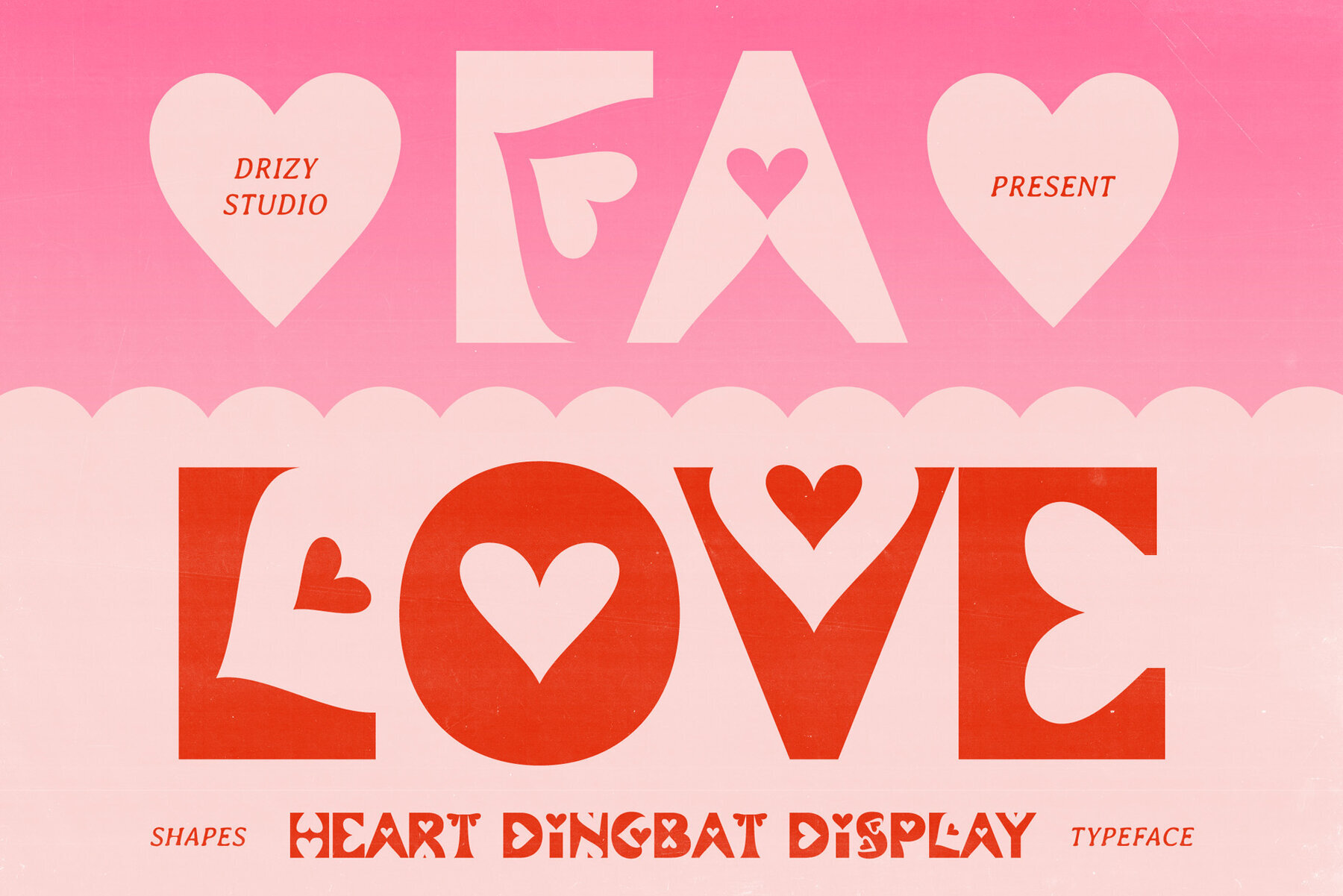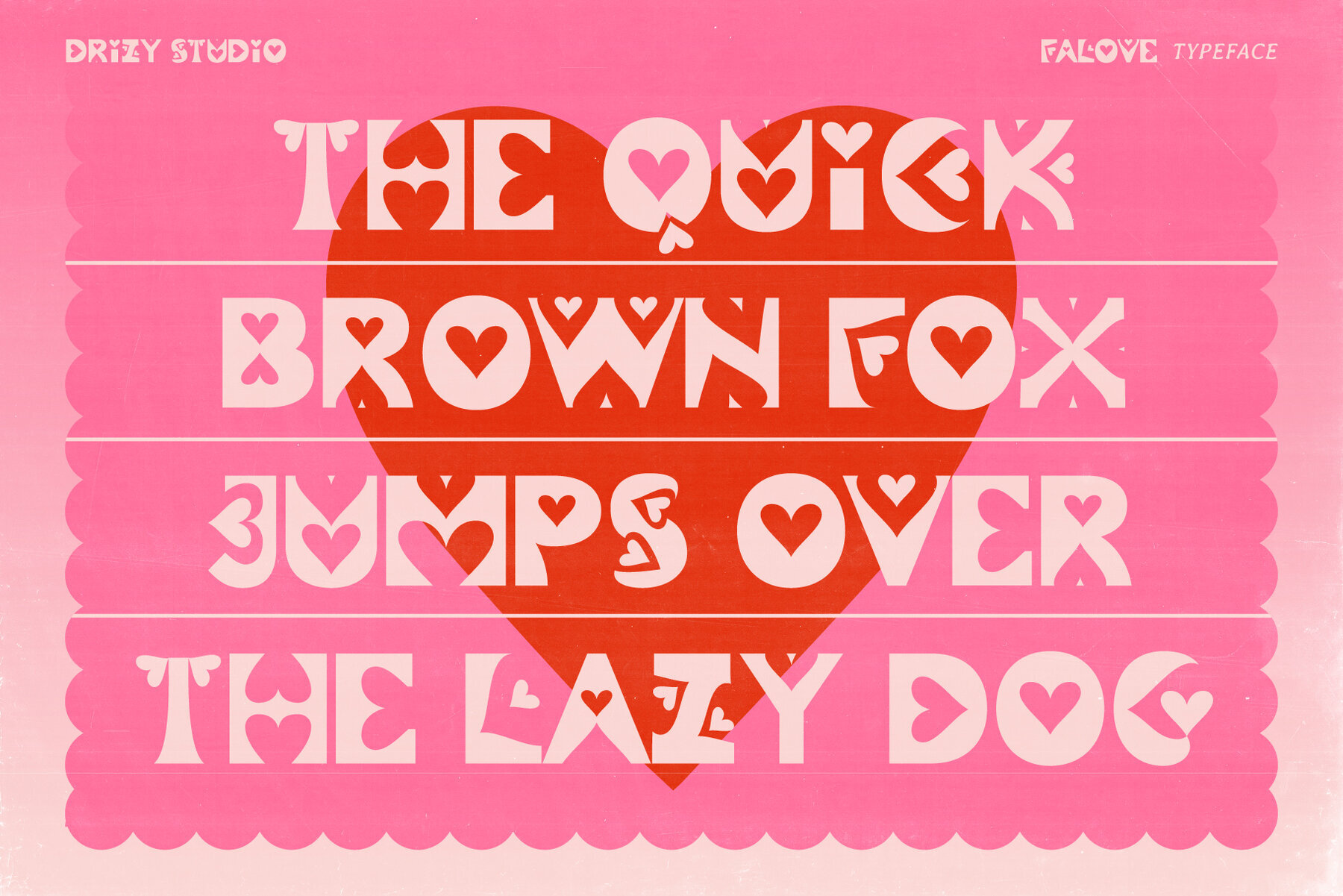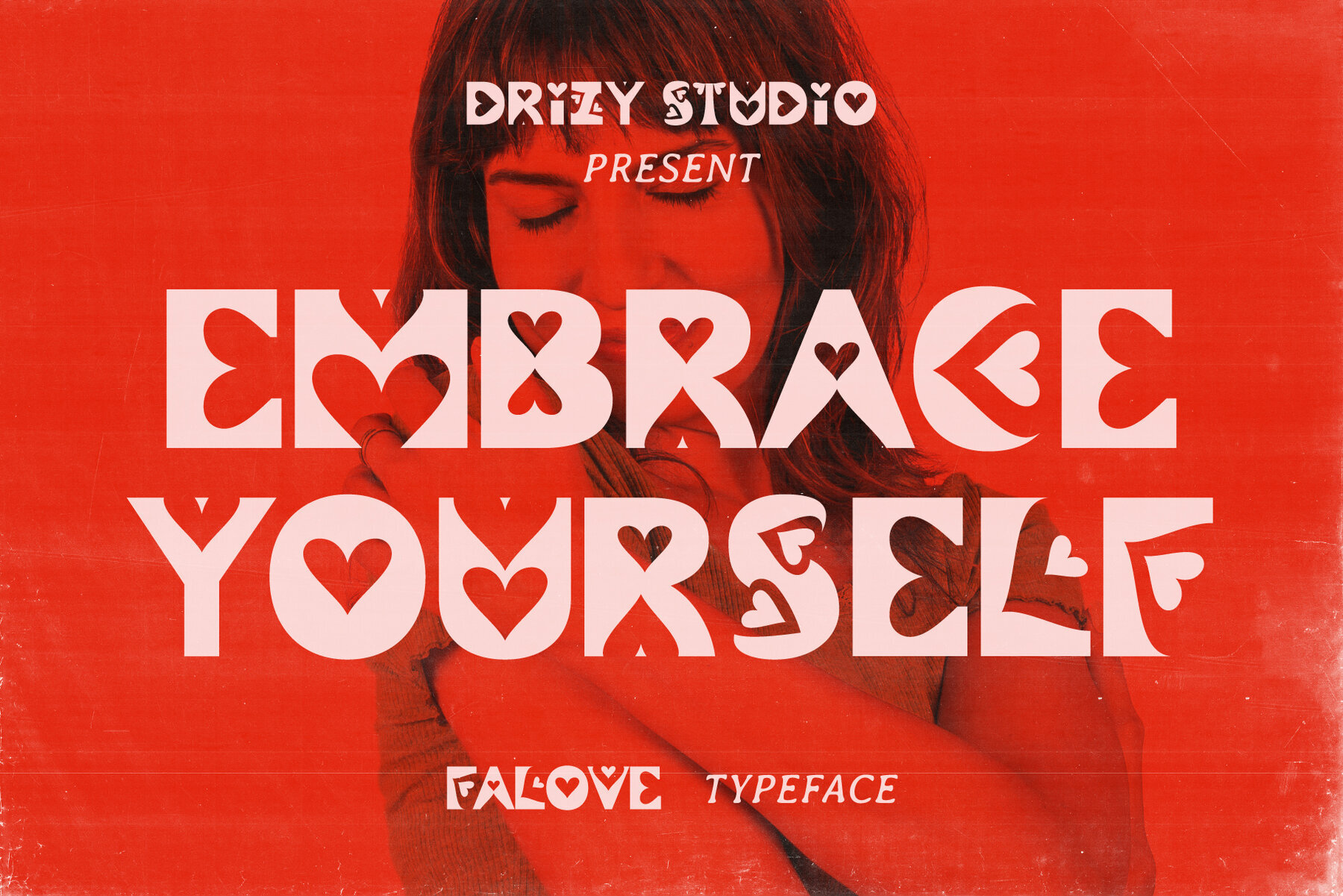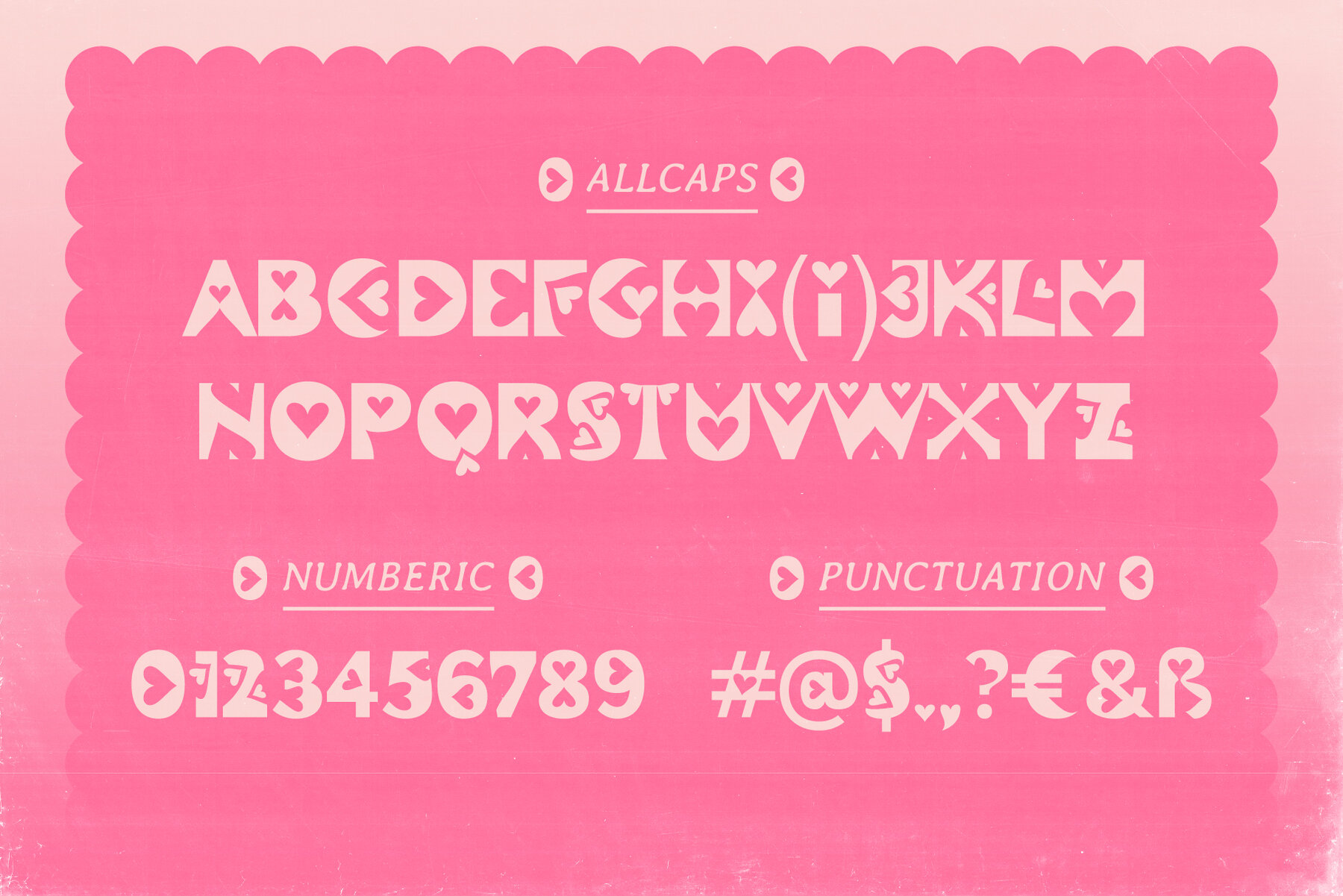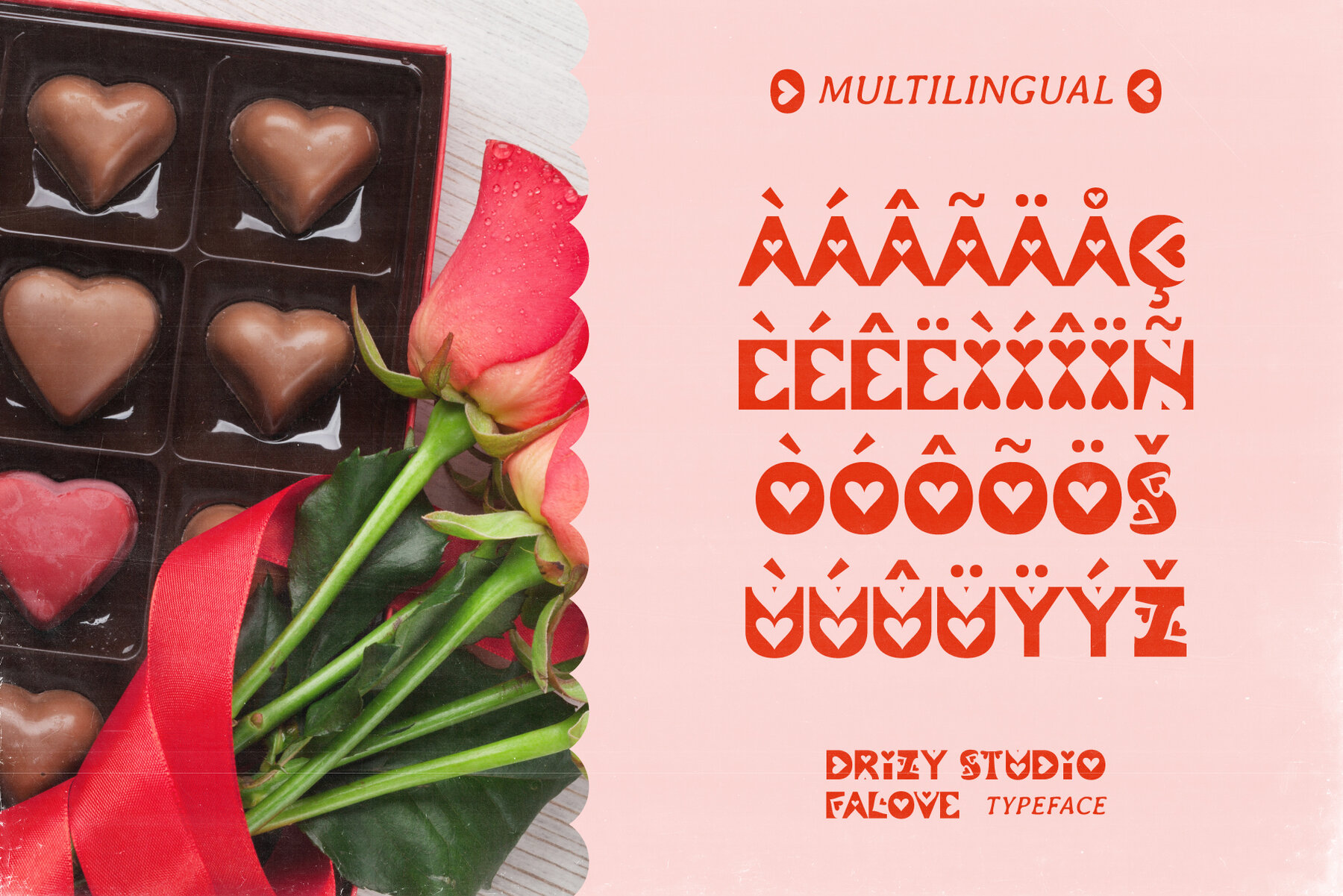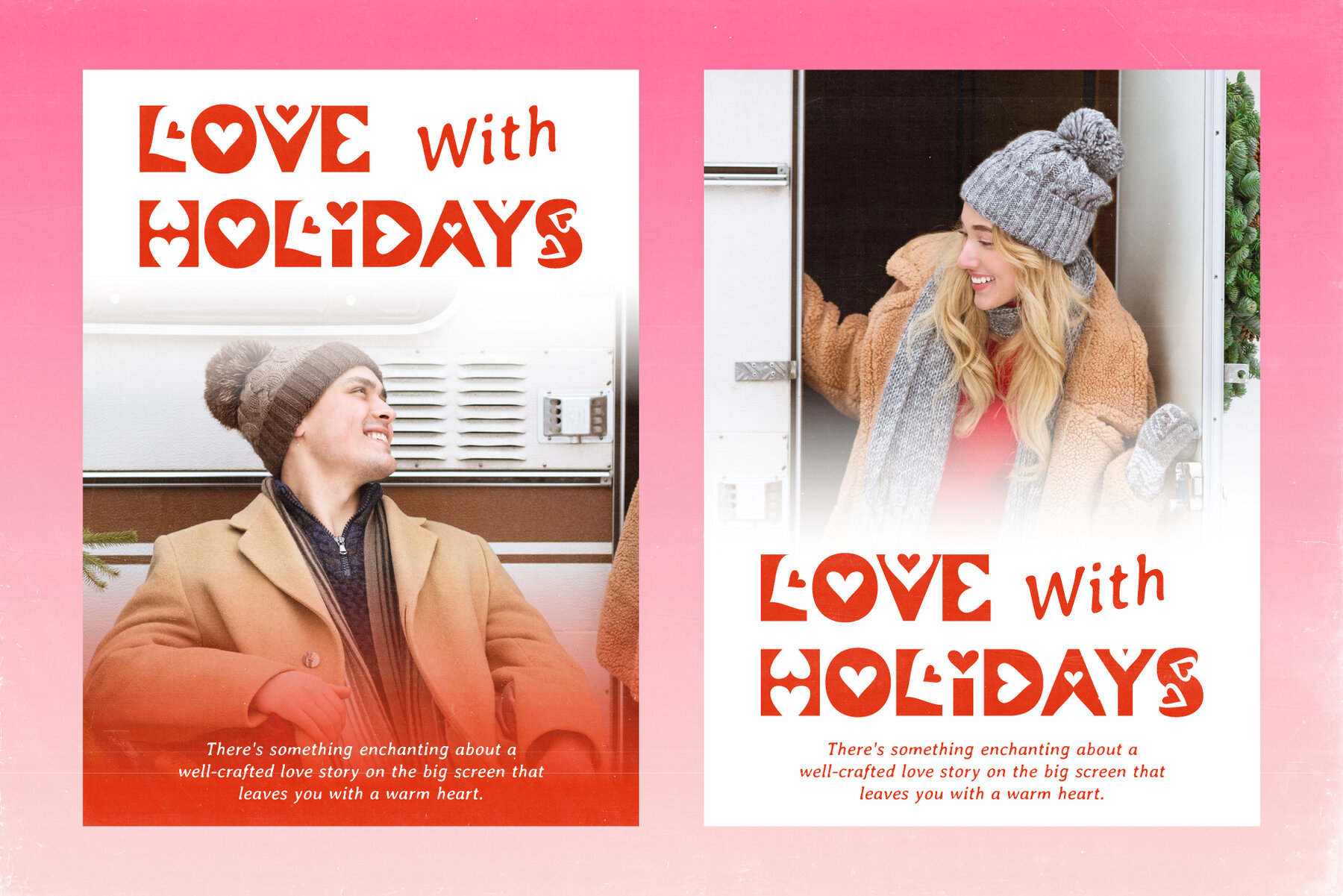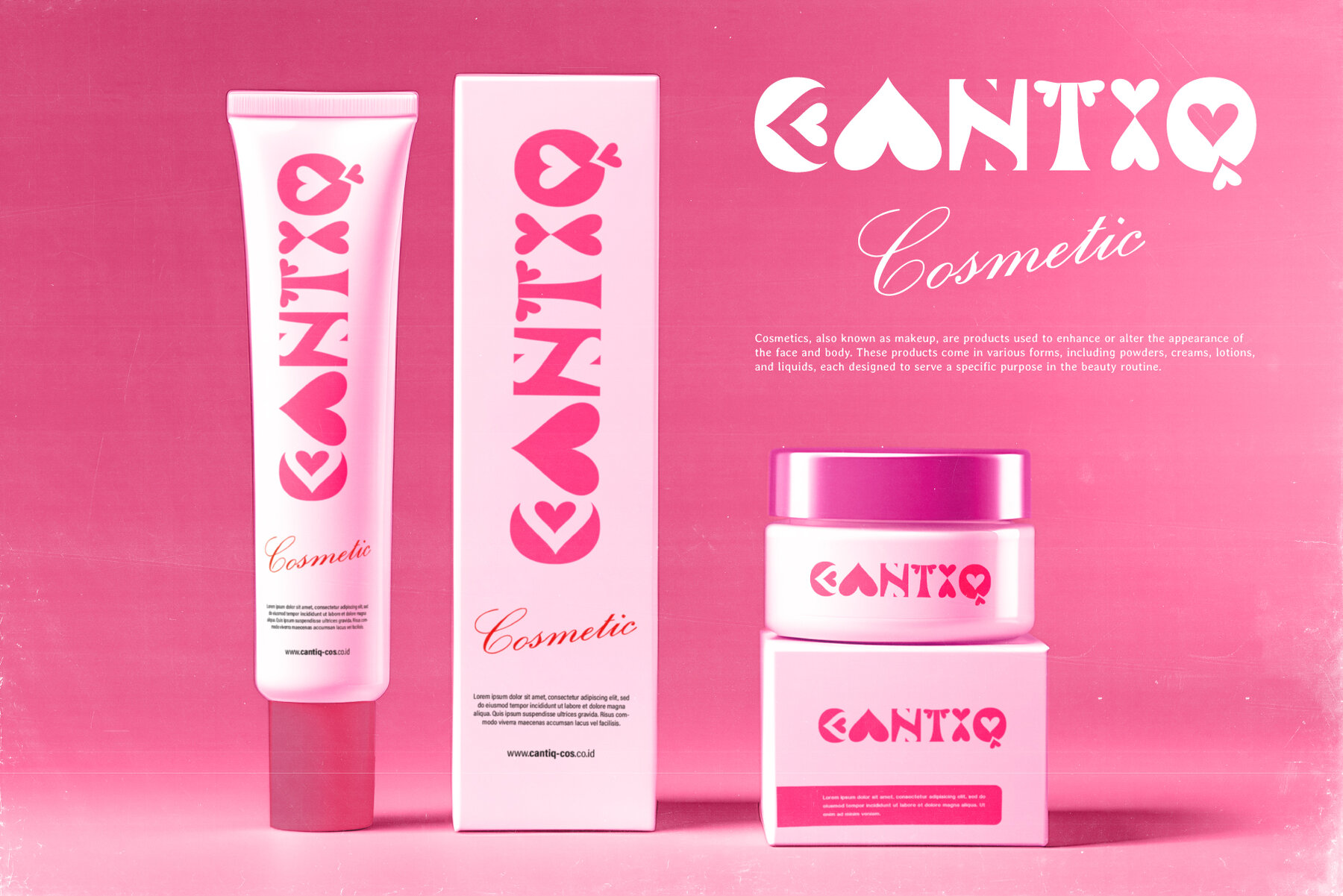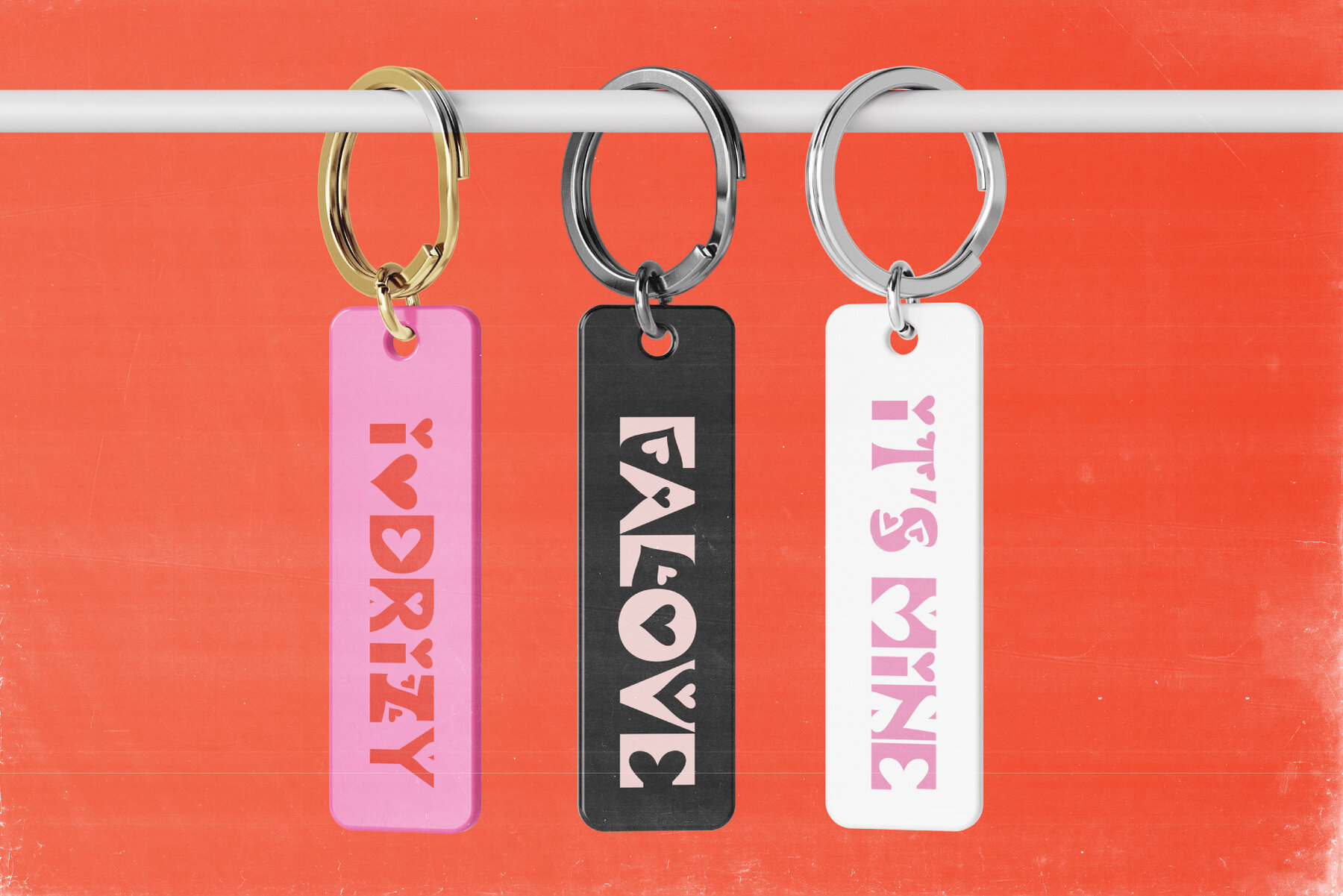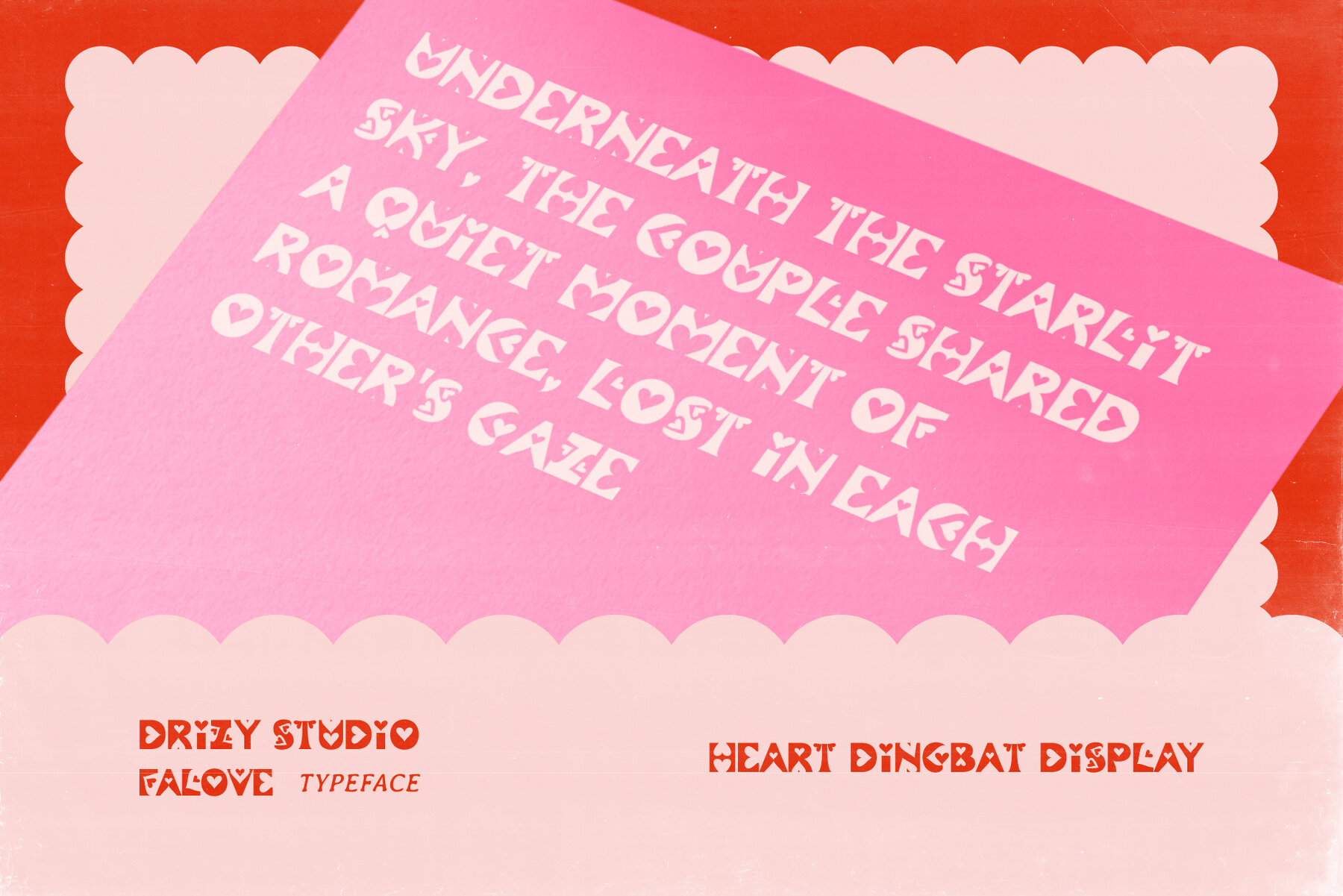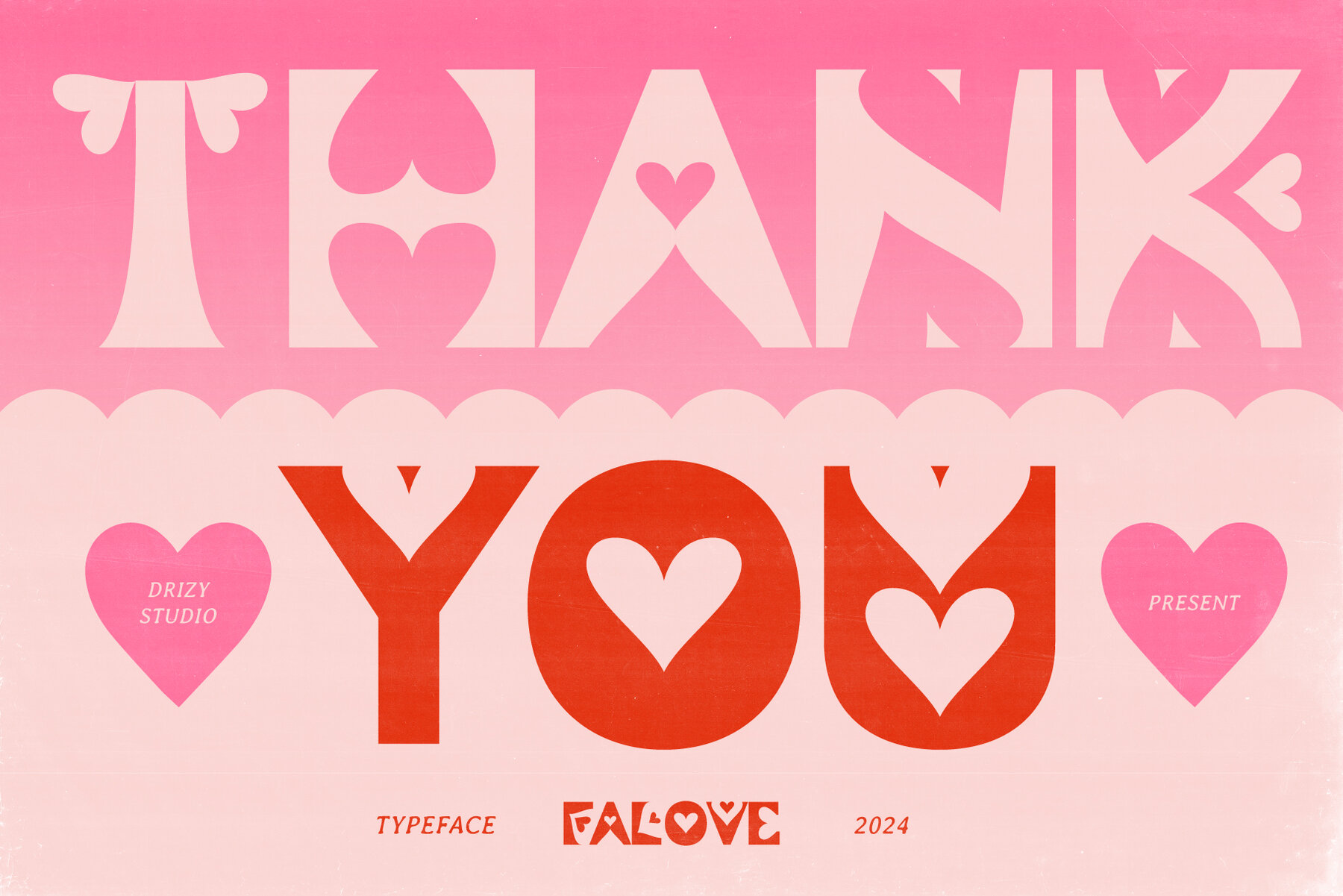
Falove Font
This decorative font features bold and playful letterforms adorned with heart-shaped cutouts, making it an eye-catching choice for any project that requires a touch of whimsy and fun. Ideal for headlines, posters, greeting cards, party invitations, and any design project that aims to stand out with a unique and artistic flair.